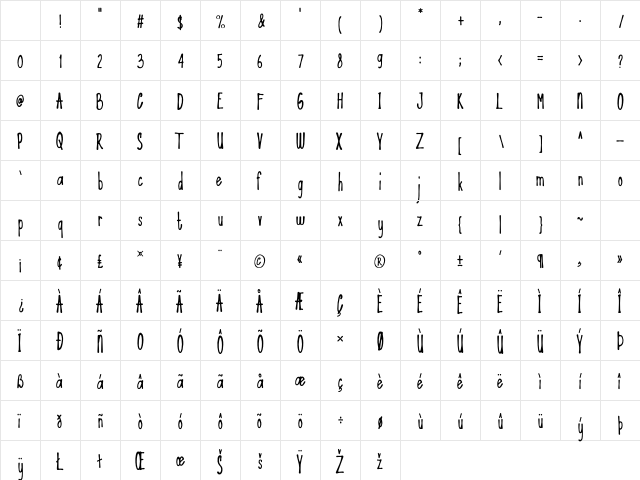
Complete Broken Crowbar Regular glyph index. Displaying only characters natively supported by Broken Crowbar Regular font.
Broken Crowbar is a composed and adaptable typeface that performs quietly and consistently across a wide range of design contexts.